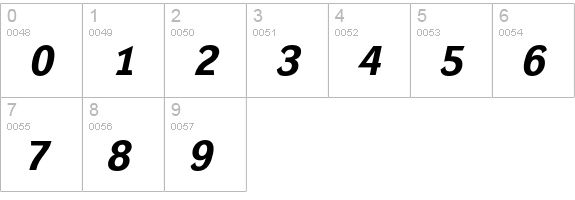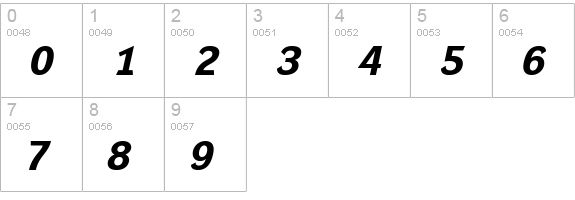
Dynamo Italic H E is a distinctive, italic variant in the Dynamo typeface family \xE2\x80\x94 well suited to design and typography projects.
Dynamo Italic H E is a sleek and modern font that exudes elegance and sophistication. Its italic style adds a touch of flair and dynamism to any design project. This font is perfect for creating eye-catching headings, titles, and logos that demand attention. What sets Dynamo Italic H E apart is its versatility and readability, making it suitable for a wide range of design applications. Whether you're working on a website, branding materials, or print publications, this font will elevate your design and bring it to the next level. The best part is that Dynamo Italic H E is available for free download at FontsMarket.com. Now you can access this high-quality font without any cost, making it a valuable addition to your font collection. Don't miss out on the opportunity to enhance your designs with the stylish and contemporary Dynamo Italic H E font.